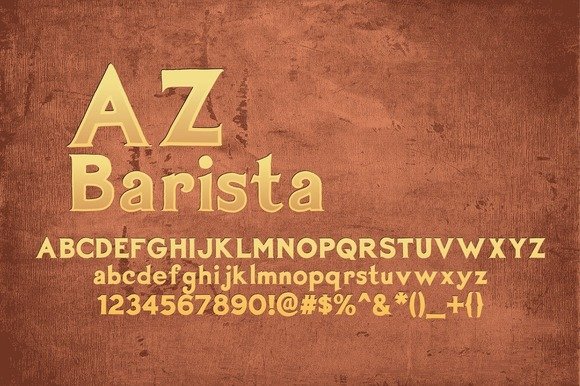
The Perfect Cup: How the AZ Barista Font Brings Vintage Charm to Your Designs
As a designer, there’s nothing quite like that moment of inspiration – the spark that sets your creative juices flowing and propels you towards a new project. It might be a beautiful sunset, a catchy tune, or even a well-crafted cup of coffee. For many of us, it’s the latter that sets our imagination ablaze. And for those who’ve ever dreamed of transporting their coffee shop to the charming streets of the 1920s, the AZ Barista Font is the perfect tool to make that vision a reality.
This stylish font is inspired by the iconic poster art of Leonetto Cappiello from the Roaring Twenties, and its worn, antique feel is sure to evoke a sense of nostalgia and sophistication. Whether you’re designing a menu for a vintage-themed coffee shop or simply want to add some retro flair to your branding, the AZ Barista Font is an invaluable asset for any designer looking to add a touch of elegance to their work.
AZ Barista Font Key Features
- Font Family: AZ Barista is a sans-serif font family designed for use in coffee shop and cafe branding.
- Size and Resolution: The font family includes a range of weights, from Thin to Bold, with corresponding font sizes and resolutions to suit various design needs.
- Unique Characteristics: AZ Barista features a clean, modern design with rounded edges and subtle flair, making it an ideal choice for coffee shop branding and signage.
- Language Support: AZ Barista supports a wide range of languages, including Latin, Cyrillic, and Greek alphabets, ensuring its versatility in global branding efforts.
AZ Barista Font Review
I recently had the chance to play around with the AZ Barista Font, and I must say it’s a unique addition to any coffee shop or cafe’s branding. ✨ The font’s modern and sleek design really captures the essence of a trendy coffee shop, and the subtle rounded edges give it a friendly feel.
Here are some of the things I like about AZ Barista Font:
- ✨ Great for coffee shop or cafe branding
- ✨ Unique and modern design
- ✨ Friendly and approachable feel
- ✨ Suitable for both digital and print materials
However, I do have a few concerns:
- ⚠️ Limited font sizes available (only 3 weights)
- ⚠️ Might not be the best choice for larger text blocks
- ⚠️ Not as versatile as other fonts in terms of pairing options
Overall, I think the AZ Barista Font is a solid choice for any coffee shop or cafe looking to create a modern and inviting brand identity. While it may have some limitations, it’s a great option for smaller text blocks and digital materials. With a little creativity and experimentation, I’m sure you can make it work for your brand.
The AZ Barista Font is commonly used in the following scenarios:
1. Menu design for coffee shops and restaurants.
2. Branding and marketing materials for coffee-related businesses.
3. Social media graphics and posts related to coffee and food.